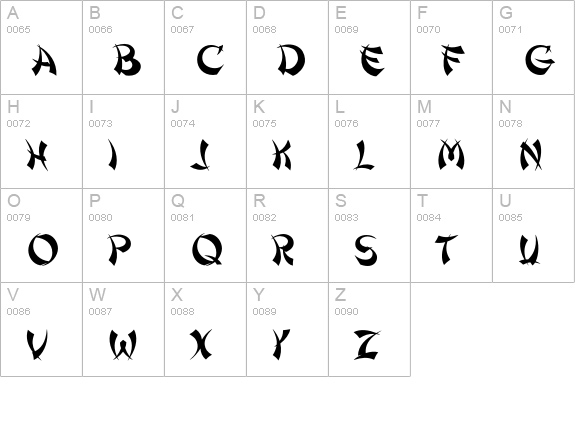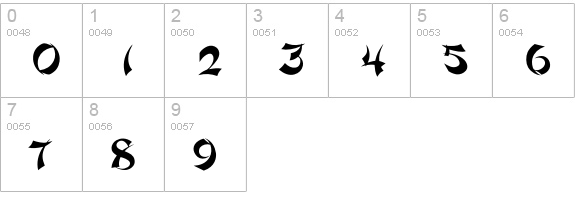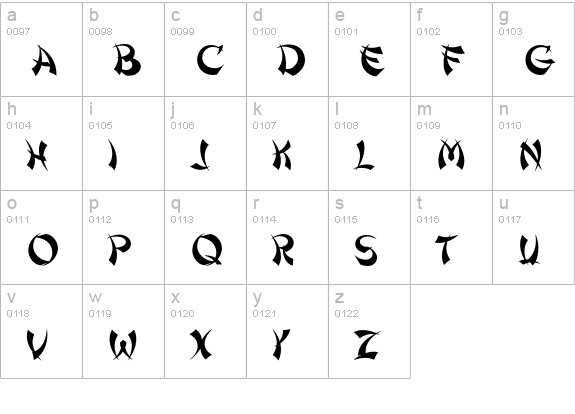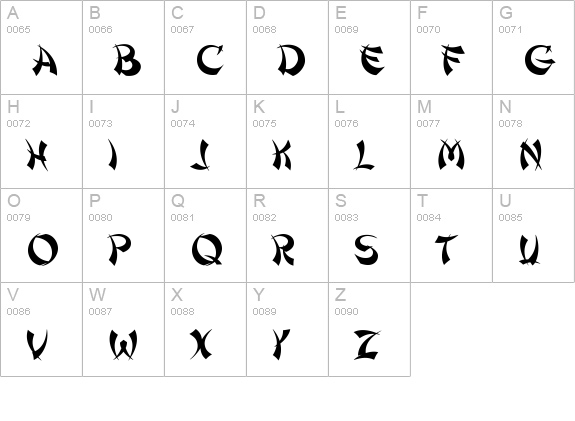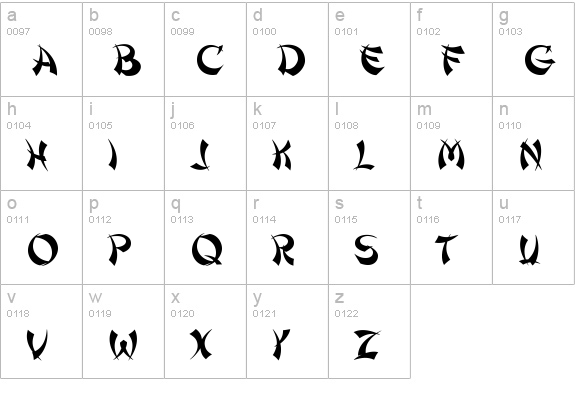
Chinese Font Details
Experience the beauty and elegance of Chinese characters with our exquisite Chinese font collection. Our carefully crafted fonts capture the essence of traditional calligraphy while also offering a modern twist, making them perfect for a wide range of design projects. Whether you are creating invitations, posters, or branding materials, our Chinese fonts will add a touch of sophistication to your work. Best of all, our Chinese font collection is available for free download at FontsMarket.com. Simply visit our website to explore our vast selection of fonts and find the perfect one for your next project. With our free Chinese fonts, you can easily bring a touch of authenticity and cultural richness to your designs. Download now and elevate your design projects to new heights with our stunning Chinese font collection.